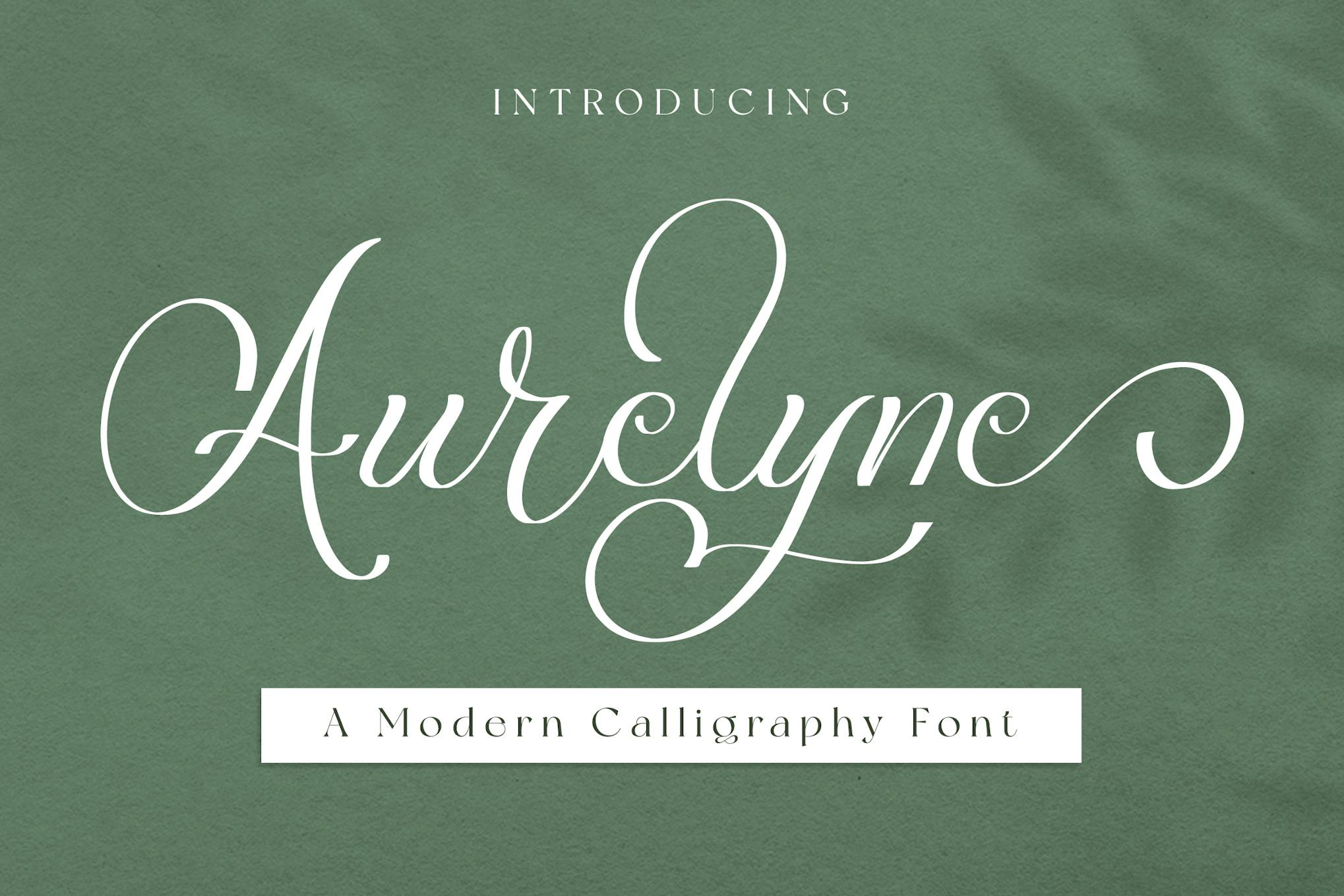
Aurelyna is an elegant calligraphy font that beautifully captures the art of handwriting, perfect for adding a personal touch to invitations, greeting cards, and other creative projects. With its flowing strokes and sophisticated design, this font enhances any text, making it stand out effortlessly. It offers versatility for various applications, ensuring a polished and refined appearance.